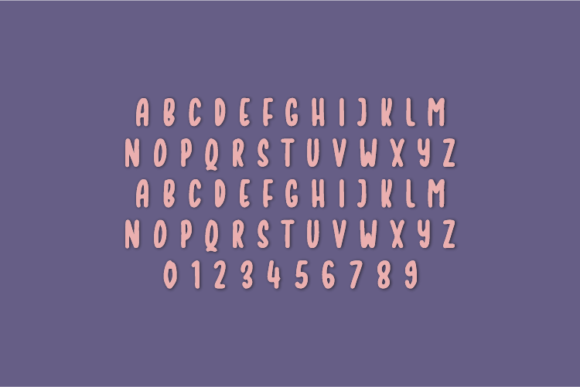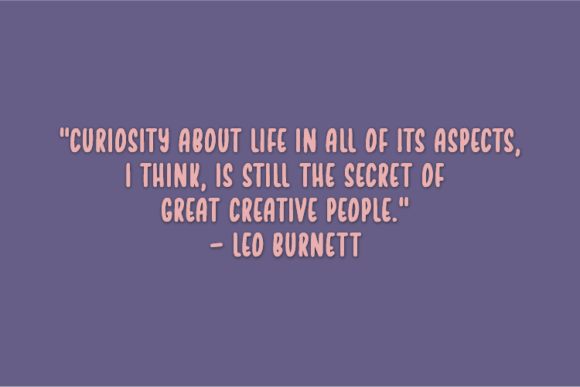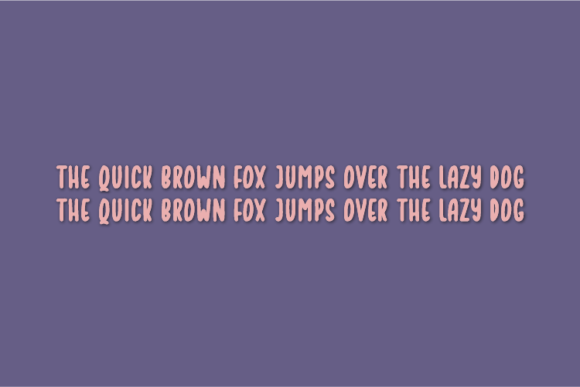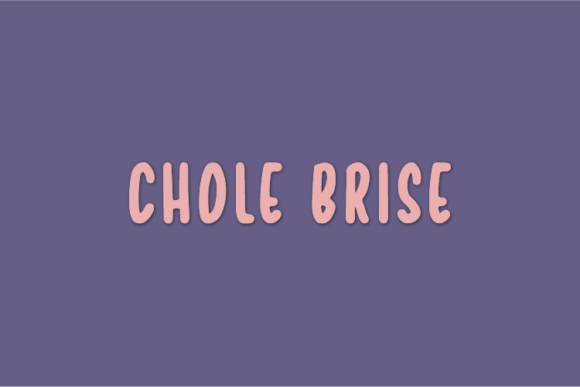
Introducing Chole Brise Font: Elevate Your Designs with a Natural and Neat Handwritten Style
In the world of typography, a well-crafted font can make all the difference in elevating your designs to the next level. For designers and crafters looking for a versatile and visually appealing font, Chole Brise is an excellent addition to your font library. This natural and neat handwritten font is perfect for a wide range of projects, from creative branding and advertising to crafting and DIY endeavors.
The Characteristics of Chole Brise Font
Chole Brise is a beautifully designed handwritten font that exudes a sense of natural elegance. Its neat and organized strokes make it perfect for designs that require a touch of sophistication and refinement. The font’s unique characteristics include:
- Natural and fluid strokes: Chole Brise’s handwritten strokes have a natural flow, giving the font a friendly and approachable feel.
- Neat and organized: The font’s neat and organized strokes make it perfect for designs that require a touch of sophistication and refinement.
- High legibility: Chole Brise’s clear and legible design ensures that your text is easily readable, even at smaller font sizes.
Why Choose Chole Brise Font?
So, why should designers and crafters choose Chole Brise font for their projects? Here are just a few reasons:
- Versatility: Chole Brise is a versatile font that can be used for a wide range of projects, from creative branding and advertising to crafting and DIY endeavors.
- Elegance: The font’s natural and neat design makes it perfect for designs that require a touch of sophistication and refinement.
- Easy to read: Chole Brise’s clear and legible design ensures that your text is easily readable, even at smaller font sizes.
Use Cases for Chole Brise Font
Chole Brise font is perfect for a wide range of projects, including:
- Branding and advertising: Use Chole Brise to create elegant and sophisticated brand identities, logos, and advertising materials.
- Crafting and DIY projects: Add a touch of handmade charm to your crafting and DIY projects, such as handmade cards, gift tags, and more.
- Stationery and invitations: Use Chole Brise to create beautiful and elegant stationery, invitations, and greeting cards.
Tips for Using Chole Brise Font
Here are a few tips for getting the most out of Chole Brise font:
- Experiment with font sizes: Chole Brise looks great at a wide range of font sizes, from small and delicate to large and bold.
- Pair with other fonts: Try pairing Chole Brise with other fonts to create interesting and unique typography combinations.
- Use for headlines and body text: Chole Brise is perfect for both headlines and body text, making it a versatile addition to your font library.
In conclusion, Chole Brise font is a natural and neat handwritten font that is perfect for designers and crafters looking for a versatile and visually appealing font. Its unique characteristics, versatility, and elegance make it an excellent addition to your font library. Whether you’re working on a branding project, crafting and DIY endeavor, or stationery and invitation design, Chole Brise is sure to elevate your designs to the next level.